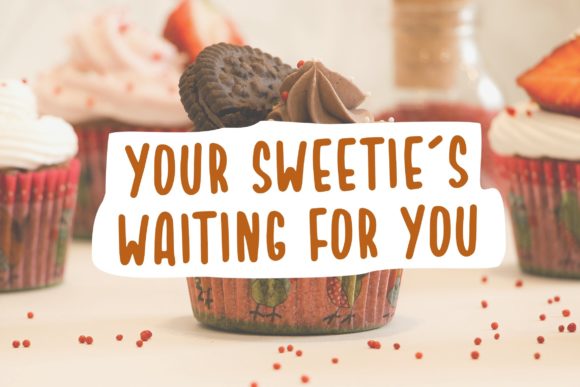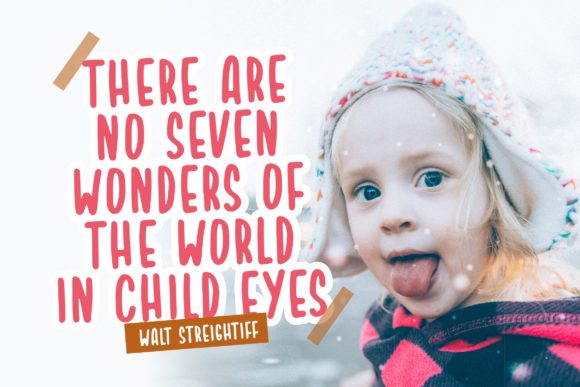
Smilecake Cute Font
db-ku.com - Script & Handwritten -- Smilecake Cute is a neat and casual handwritten font. Whether you’re looking for fonts for Instagram or calligraphy scripts for DIY projects, this font will turn any creative idea into a true piece of art!